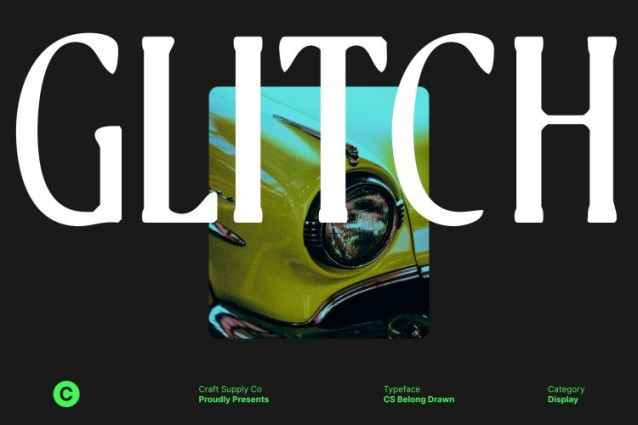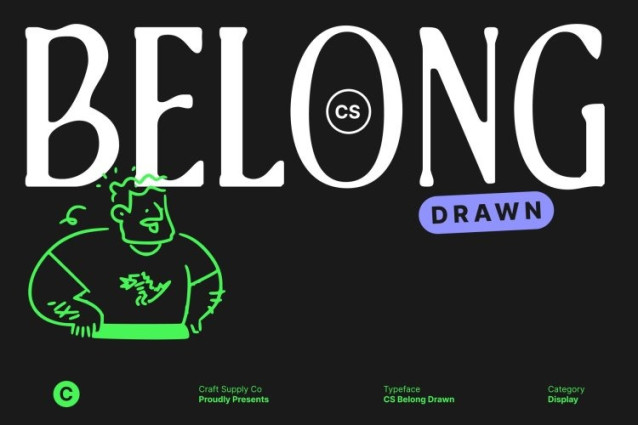
CS Belong Drawn Font
CS Belong Drawn Font This is an serif font crafted to deliver a refined and luxurious visual presence with a subtle handcrafted touch. Defined by graceful curves, elongated details, and sleek contemporary lines, this typeface presents a polished, high-end aesthetic that feels modern and confident. The drawn effect introduces soft texture and artistic nuance, adding warmth and uniqueness without diminishing its premium character.
Elongated Forms with Refined, Handcrafted Curves
The distinctive character of this font lies in its elongated letterforms and carefully sculpted curves, enhanced by a gentle drawn finish. These subtle imperfections create a sense of natural flow and visual elegance, giving each word added personality and depth. The balance between structure and softness allows the font to remain clear and readable while feeling expressive and refined.
Modern Luxury with Artistic Precision
This font embodies contemporary luxury through clean construction paired with an artistic, hand-drawn sensibility. Its elegant serifs and smooth transitions feel confident yet understated, while the drawn texture softens the overall look, making it more human and expressive.
Ideal for Luxury Design, Editorials, and Branding
Designed for premium applications, this font is ideal for luxury branding, editorial layouts, fashion publications, packaging, and high-end marketing materials. Its elegant serif structure combined with a subtle drawn texture elevates headlines, body text, and logos with sophistication, artistry, and contemporary charm.